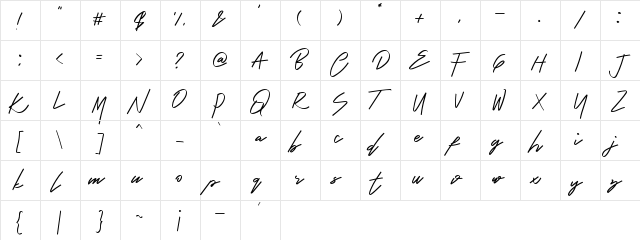
Bambang Regular
Design Context for Bambang Typeface
Bambang is a composed and adaptable typeface that performs quietly and consistently across a wide range of design contexts.